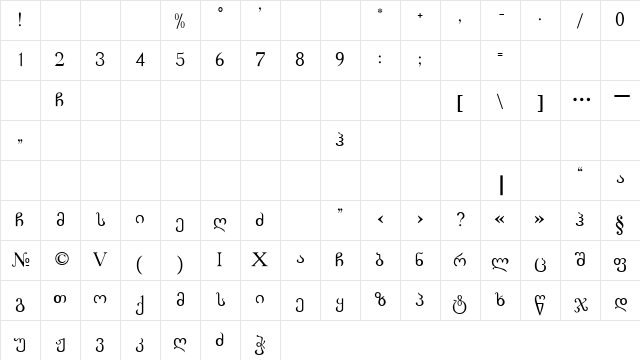
Literaturuli Regular
Design Context for Literaturuli Typeface
Literaturuli is a composed and adaptable typeface that performs quietly and consistently across a wide range of design contexts.